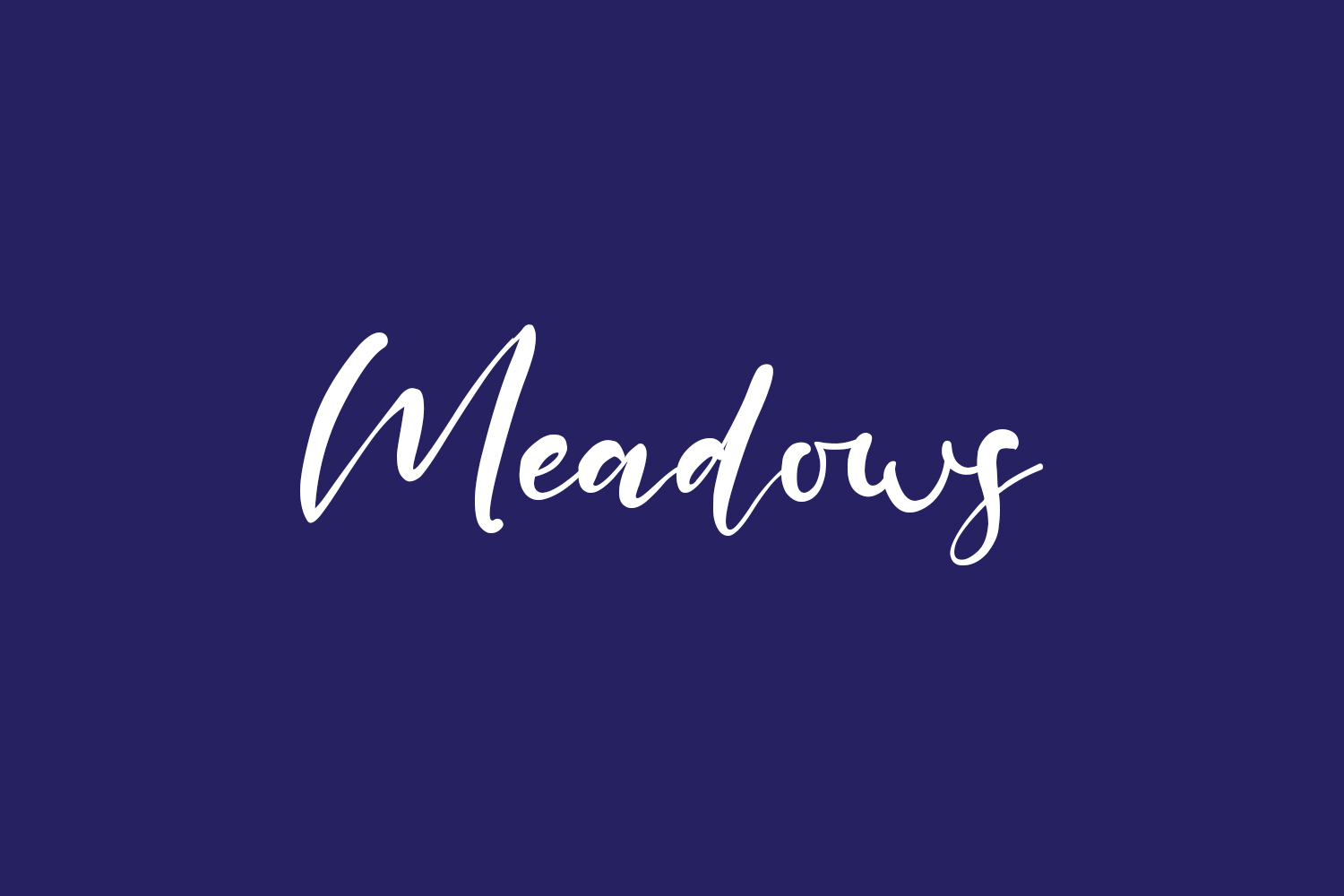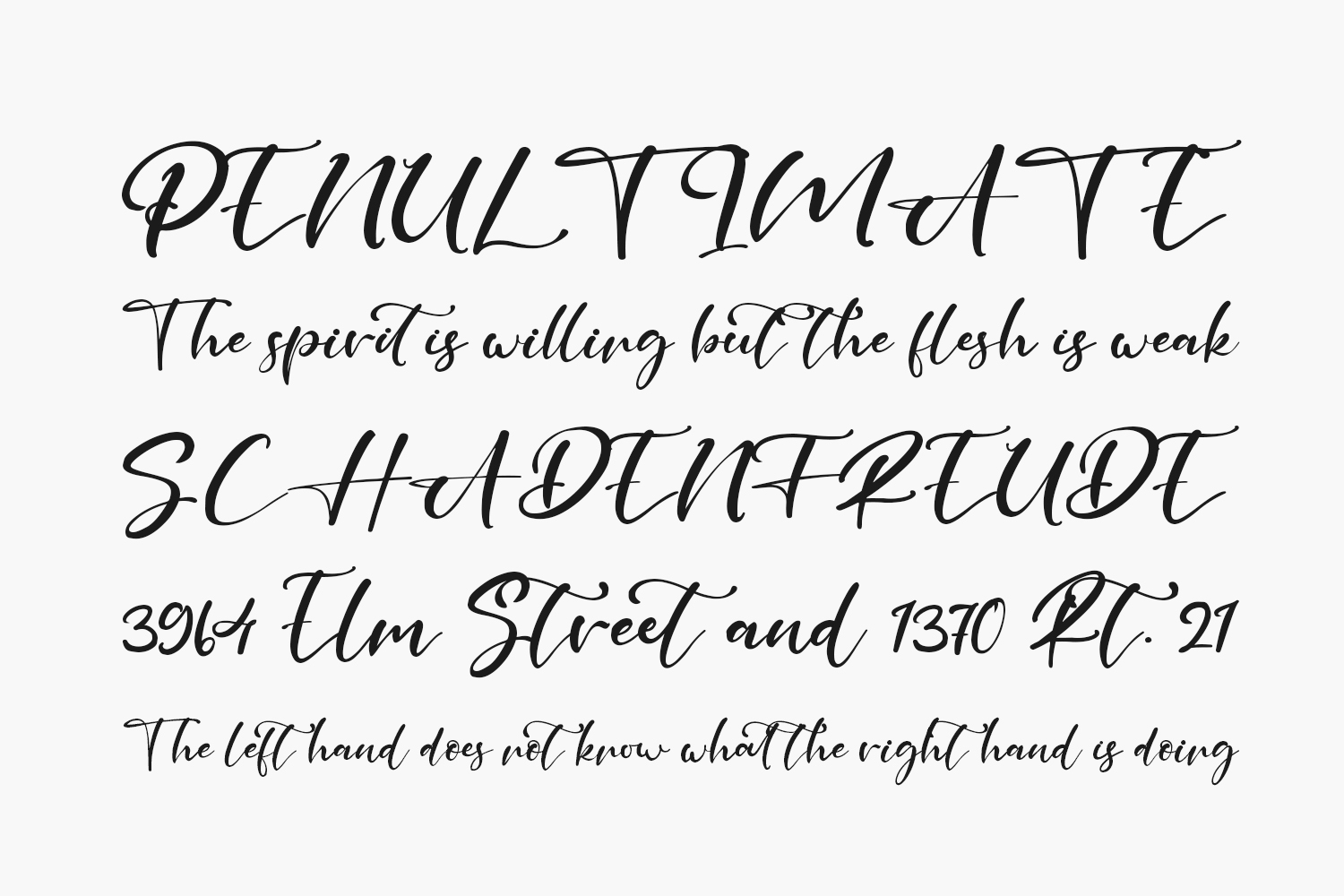
Meadows Free Font is a modern and trendy handwritten script font. It’s great for crafters and designers. Meadows Free Font was designed by Kong Font and is free for personal use only. Please purchase the full version for commercial use.